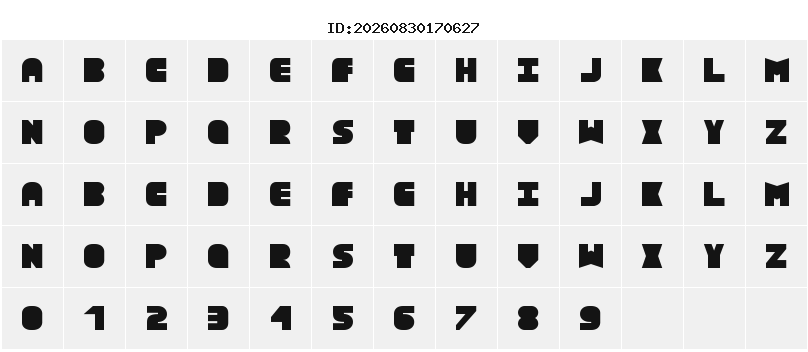
TextBox Regular Preview
• Font Name: TextBox Regular
• Full Font Name: TextBox Regular
• PostScript Name: TextBoxRegular
• Designer: M?rcio Duarte
• Manufacturer: Marcio Duarte
About TextBox Regular.ttf
TextBox Regular.ttf is a modern, elegant sans-serif font designed for ultimate readability and visual harmony. Perfect for branding, headlines, web design, and print materials.